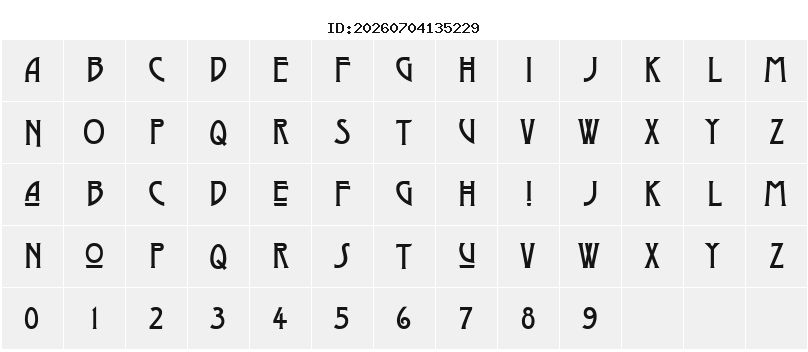
Dyer Arts and Crafts Preview
• Designer: Arts & Crafts Movement
• Manufacturer: Typo-Graf
• Description: Dyer Arts and Crafts is a font by the Arts & Crafts Movement, designed 1850-1910. German umlauts added by Typo-Graf.
About Dyer Arts and Crafts.ttf
Dyer Arts and Crafts.ttf is a modern, elegant sans-serif font designed for ultimate readability and visual harmony. Perfect for branding, headlines, web design, and print materials.